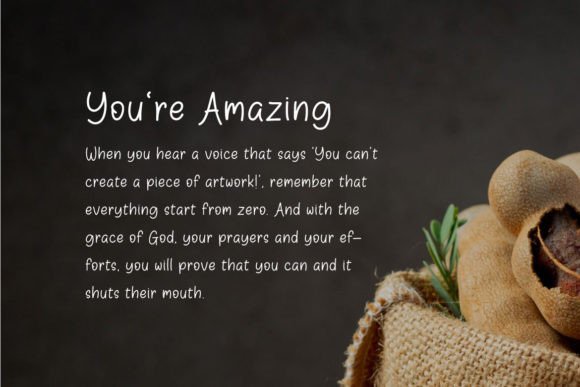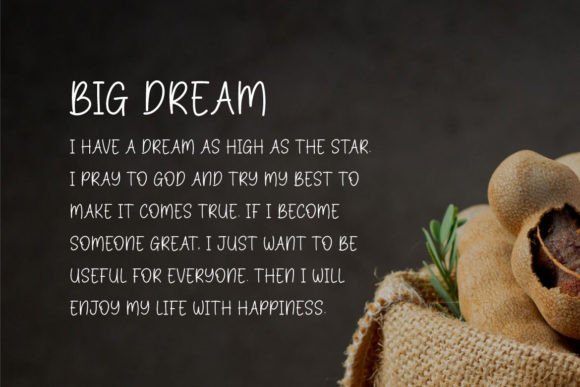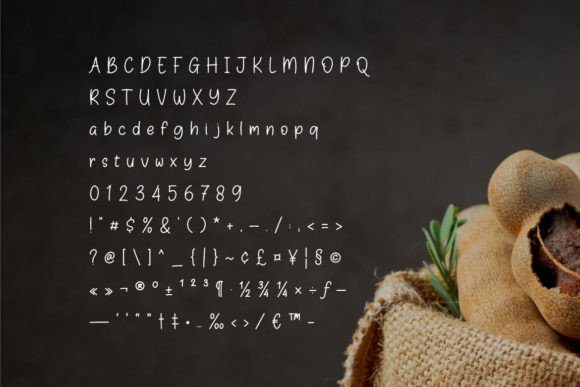
Gula Asem Font: A Creative Handwritten Font for Designers and Crafters
Are you a designer or crafter looking for a unique and creative font to add a personal touch to your projects? Look no further than the Gula Asem font, a beautiful handwritten font that can be used in a wide range of applications. In this article, we’ll explore the features and benefits of the Gula Asem font, and show you how to use it to take your designs to the next level.
What is Gula Asem Font?
Gula Asem is a handwritten font that is perfect for adding a personal and creative touch to your designs. The font is carefully crafted to resemble handwriting, with a unique and distinctive style that sets it apart from other fonts. Whether you’re creating a comic book, poster, flyer, or social media content, the Gula Asem font is sure to make your project stand out.
Key Features of Gula Asem Font
So what makes the Gula Asem font so special? Here are just a few of its key features:
- Handwritten style: The Gula Asem font is a true handwritten font, with a unique and personal style that adds a touch of warmth and character to your designs.
- Versatile: The Gula Asem font can be used in a wide range of applications, from comic books and posters to school projects and social media content.
- Easy to read: Despite its creative and artistic style, the Gula Asem font is easy to read and understand, making it perfect for use in body text and other applications where legibility is key.
- Customizable: The Gula Asem font can be customized to suit your needs, with a range of variations and weights to choose from.
Uses for Gula Asem Font
So what can you use the Gula Asem font for? The possibilities are endless! Here are just a few ideas to get you started:
- Comic books and graphic novels: The Gula Asem font is perfect for use in comic books and graphic novels, adding a touch of personality and style to your dialogue and captions.
- Posters and flyers: Use the Gula Asem font to create eye-catching posters and flyers that grab attention and communicate your message.
- School projects: The Gula Asem font is a great choice for school projects, adding a touch of creativity and personality to your reports, presentations, and other assignments.
- Social media content: Use the Gula Asem font to create engaging and shareable social media content, from Facebook posts to Instagram stories.
- Logos and branding: The Gula Asem font can be used to create unique and memorable logos and branding materials, helping you to establish a strong and consistent visual identity.
Tips for Using Gula Asem Font
Here are a few tips for getting the most out of the Gula Asem font:
- Experiment with different sizes and weights: The Gula Asem font comes in a range of sizes and weights, so don’t be afraid to experiment and find the combination that works best for your project.
- Pair with other fonts: The Gula Asem font pairs well with a range of other fonts, so try combining it with different fonts to create a unique and interesting visual effect.
- Use it sparingly: While the Gula Asem font is beautiful and eye-catching, it can be overwhelming if used too much. Try using it sparingly to add a touch of personality to your designs.
In conclusion, the Gula Asem font is a beautiful and versatile handwritten font that is perfect for designers and crafters looking to add a personal touch to their projects. With its unique and distinctive style, ease of use, and range of applications, the Gula Asem font is sure to become a favorite in your design toolkit. So why wait? Download the Gula Asem font today and start creating!